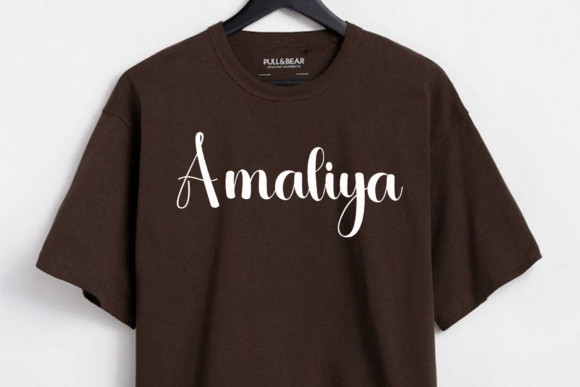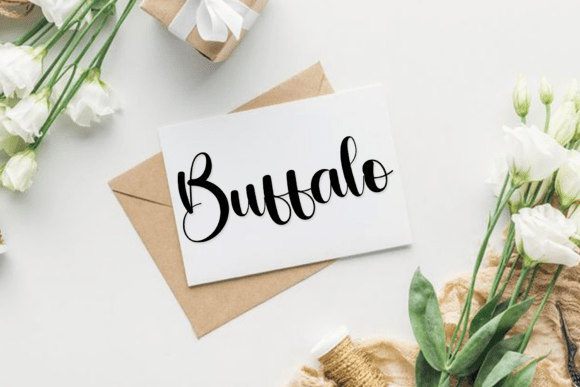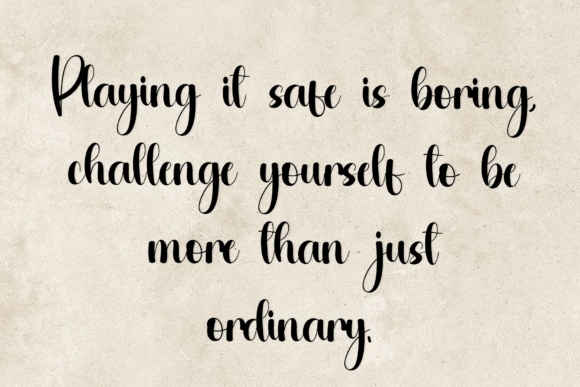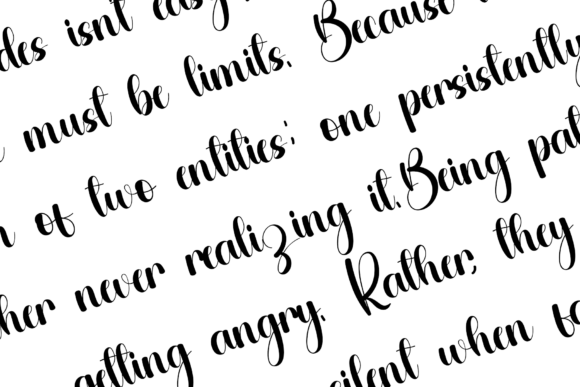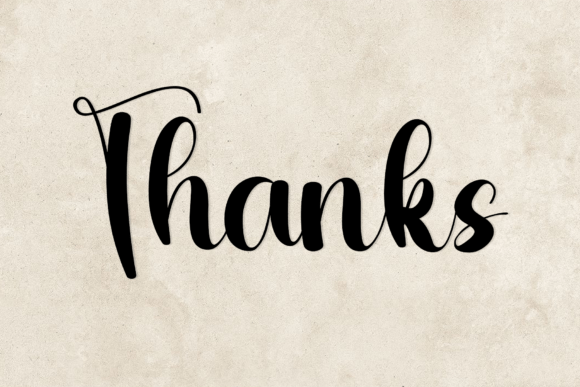
Introducing Anantha Font: The Epitome of Elegance and Sophistication
In the realm of typography, few fonts manage to convey the essence of luxury and sophistication as effortlessly as Anantha. This beautifully flowing and elegant modern handwritten script font has been turning heads with its smooth, generous curves and graceful, elongated strokes, giving it a signature look that’s hard to miss. Whether you’re a designer looking to elevate your branding, a photographer seeking the perfect watermark font, or a crafter working on luxury wedding stationery, Anantha is the perfect choice for adding a touch of class and refinement to your projects.
The Characteristics of Anantha Font
Anantha’s design is rooted in its ability to blend modern sensibilities with traditional elegance. Its smooth, flowing lines are reminiscent of handwritten scripts, yet it possesses a level of sophistication that’s rare in digital fonts. The generous curves and elongated strokes not only give Anantha its unique look but also make it highly legible, even at smaller sizes. This makes it an incredibly versatile font, suitable for a wide range of applications, from editorial design to personal branding.
Applications of Anantha Font
Personal Branding
In today’s competitive market, establishing a strong brand identity is crucial. Anantha, with its elegant and sophisticated look, offers a unique opportunity for individuals to create a lasting impression. Whether it’s for business cards, letterheads, or social media profiles, Anantha can help elevate your brand to new heights.
Photography Watermarks
For photographers, protecting your work is paramount. A watermark is an effective way to deter unauthorized use, and with Anantha, you can add a touch of elegance to your protective measure. Its luxurious feel complements photography perfectly, suggesting a high level of professionalism.
Luxury Wedding Stationery
Wedding planning is a once-in-a-lifetime experience for couples, and stationery plays a significant role in setting the tone for the big day. Anantha’s sweeping and authentic feel makes it an ideal choice for wedding invitations, save-the-date cards, and other stationery, promising a luxurious and memorable experience.
Editorial Design
In editorial design, the choice of font can significantly impact the reader’s experience. Anantha, with its natural and luxurious touch, can add depth and character to articles, magazines, and books, making it a preferred choice for designers looking to create engaging content.
Why Choose Anantha Font?
Choosing a font for your project can be overwhelming, given the numerous options available. However, Anantha stands out for several reasons:
- Unique and Professional: Anantha offers a fresh take on traditional script fonts, making it a unique addition to any project.
- Versatile: Its smooth curves and elegant strokes ensure it works well across various applications and sizes.
- Elegant and Sophisticated: Anantha brings a level of sophistication that’s hard to achieve with standard fonts.
Anantha font is more than just a typeface; it’s a statement of elegance, sophistication, and luxury. Its versatility and unique characteristics make it an invaluable asset for designers, crafters, and anyone looking to add a touch of class to their projects. Whether you’re working on personal branding, photography, wedding stationery, or editorial design, Anantha promises to elevate your work, making it stand out in a crowded digital landscape.
Incorporating Anantha into your design toolkit can significantly enhance your creative output, offering a professional and distinctive edge that’s sure to impress. Experience the elegance and sophistication that Anantha brings to the table and discover a new level of typographic excellence.